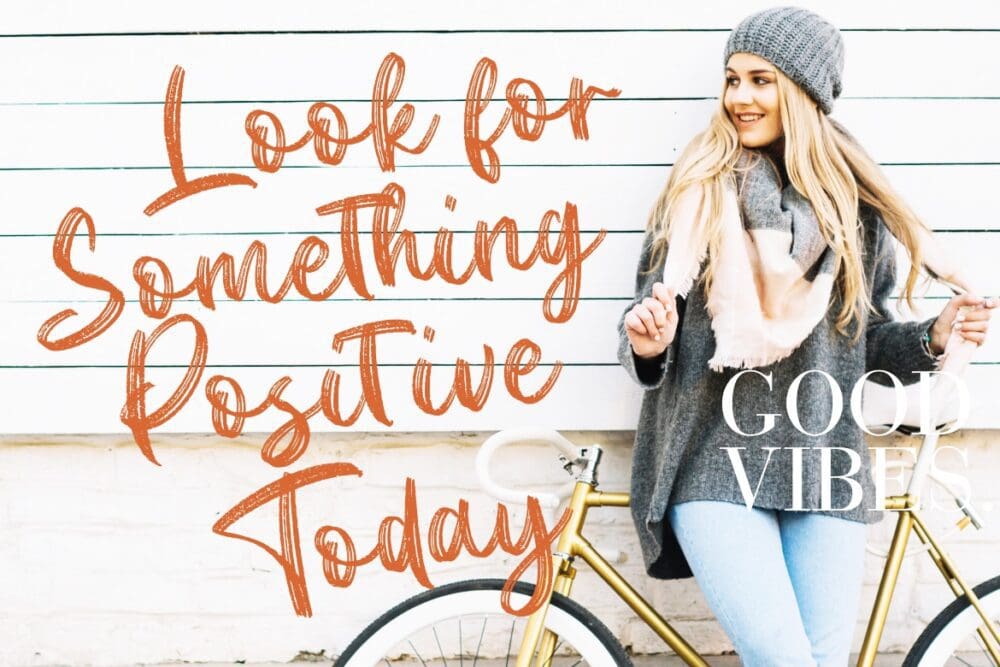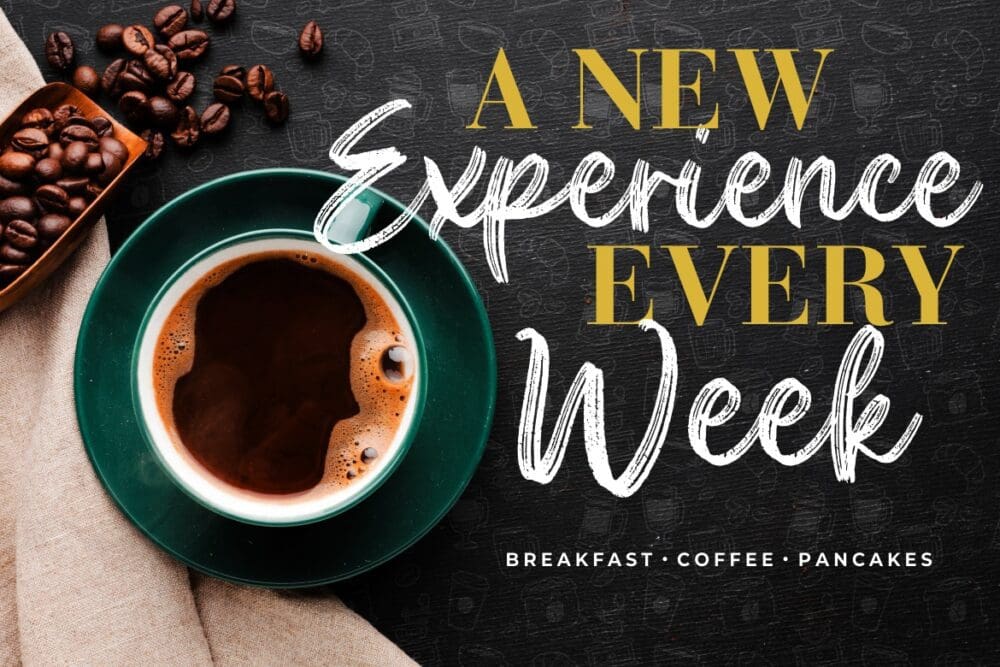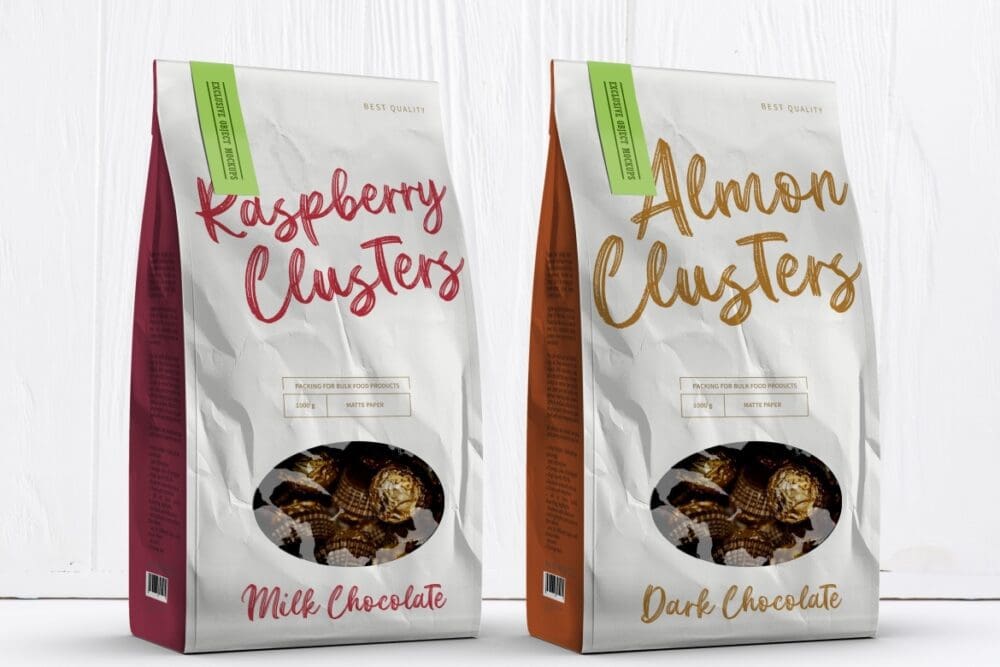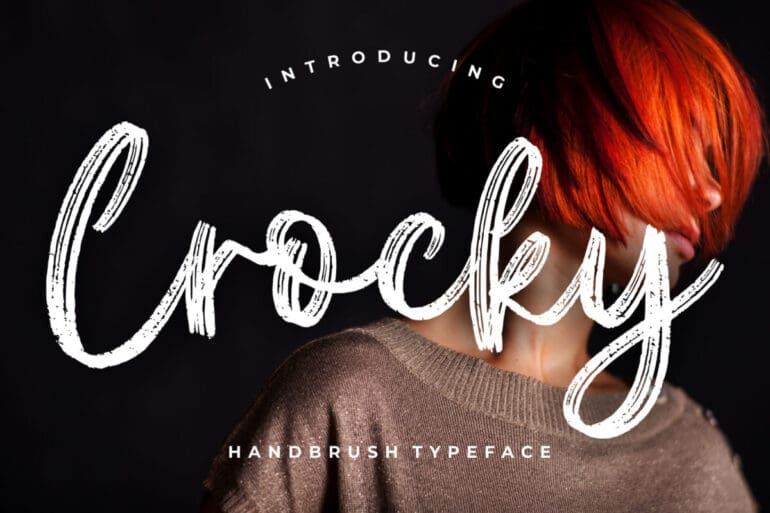
Crocky Brush Font
Crocky Brush Font written casually and full of scratch. Crocky is perfect for advertisements, product packaging, product designs, label, photography, watermark, invitation, stationery, and any other projects.